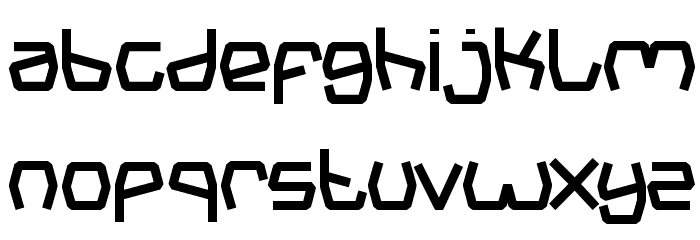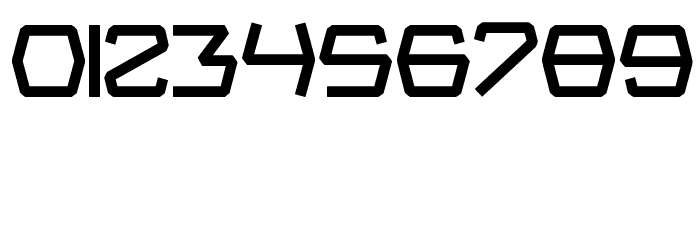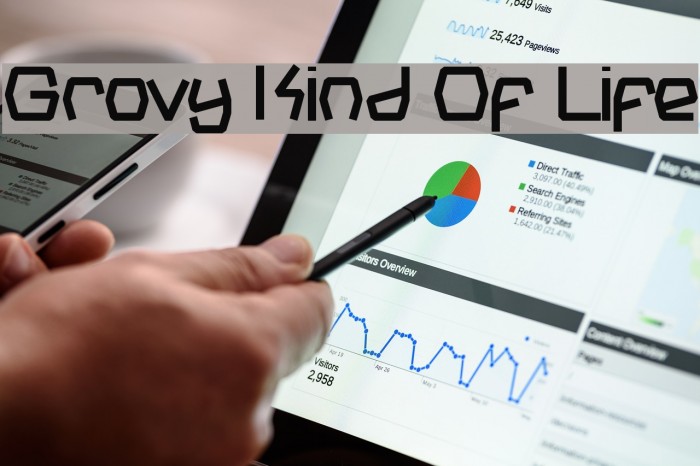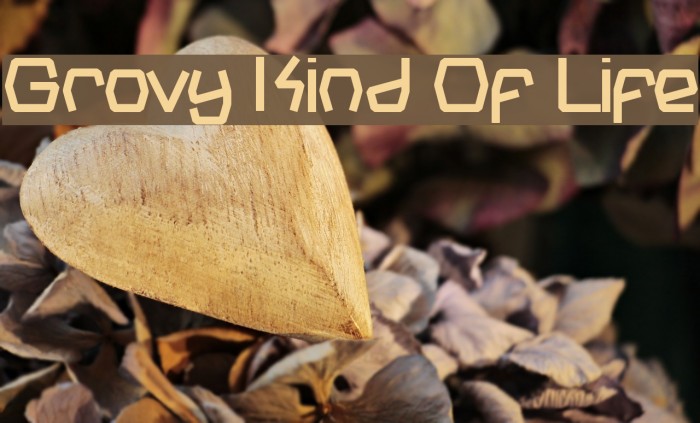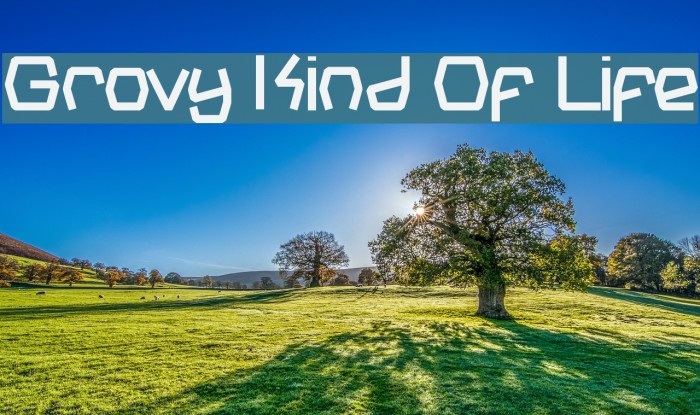
Grovy Kind Of Life Font
This font features a futuristic and geometric design, characterized by its angular and sharp edges. The letters are constructed with a consistent thickness, creating a uniform appearance across both uppercase and lowercase characters. The numbers and special characters follow the same design principles, ensuring a cohesive look. The style is reminiscent of digital or sci-fi aesthetics, making it suitable for modern and tech-oriented projects. The overall appearance is bold and striking, with a unique flair that sets it apart from traditional typefaces.
A futuristic, geometric font with angular edges and consistent thickness.
- Proposed Projects: Ideal for tech branding, sci-fi posters, video game titles, and digital interfaces.